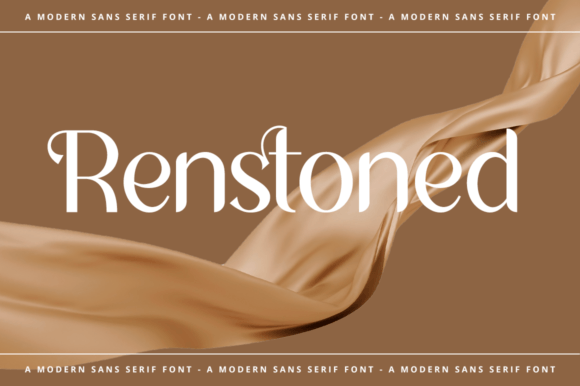
Introducing Renstoned, a stunning sans-serif font that merges sophistication and charm, ready to transform your creative visions into captivating realities. Let your imagination run wild as you explore the boundless possibilities this font unlocks. Its clean lines and elegant curves will add a touch of timeless beauty to your designs, leaving a lasting impression on your audience.
With its versatility, Renstoned effortlessly adapts to an array of projects, from business cards and logos to website designs and social media posts. Its crisp and legible structure ensures clarity and readability, making it ideal for both digital and print applications. Whether you're a seasoned designer or just starting out, Renstoned will elevate your work to new heights.
Step into a world of creativity where your ideas take center stage, and Renstoned plays the supporting role, enhancing and amplifying your message. From delicate wedding invitations to bold branding materials, this font will add a touch of class and sophistication to every project it graces. Embrace the power of Renstoned and embark on a journey of artistic exploration, where your vision knows no bounds.
With Renstoned by your side, you'll discover a newfound confidence in your creative abilities. It will ignite your imagination and inspire you to push the boundaries of design. Prepare to be amazed as your work transforms into captivating masterpieces, leaving onlookers in awe. Dive into the world of Renstoned and unlock the gateway to extraordinary design.
Don't settle for ordinary fonts that blend into the background. Choose Renstoned, the font that demands attention, elevates your message, and leaves a lasting impression. It's the perfect companion for individuals and businesses who value creativity, sophistication, and originality. Explore the endless possibilities that await you with Renstoned, and let your designs shine brighter than ever before.